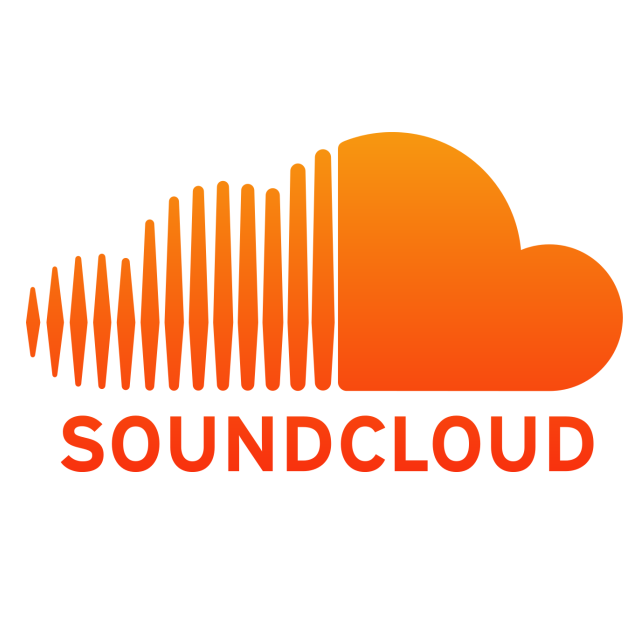
SoundCloud Logo Font
Fonts in UseSoundCloud is a music streaming platform that allows users to upload, promote, and share their own music as well as discover new music from other users around the world. It was launched in 2008 and has since become a popular platform for independent artists to showcase their work.
SoundCloud's logo and website, as well as apps, employ the sans-serif typeface called Interstate Bold. This typeface was designed by Tobias Frere-Jones for Font Bureau and is closely linked to Highway Gothic, a signage alphabet that was created for the US Federal Highway Administration in 1949.